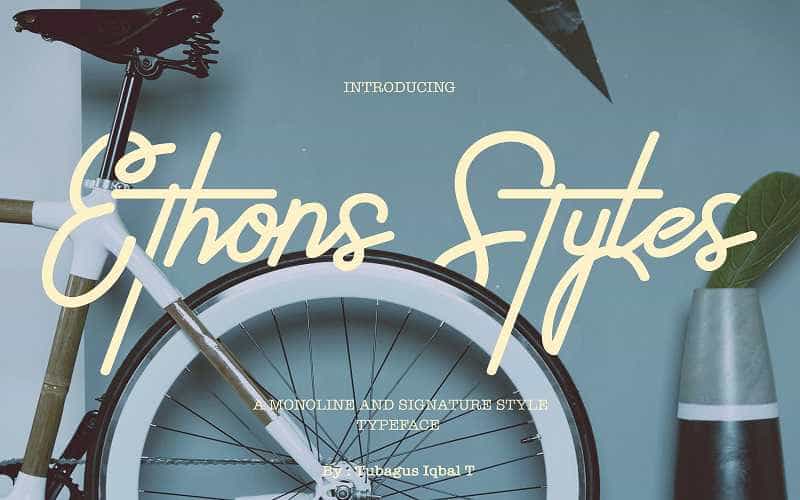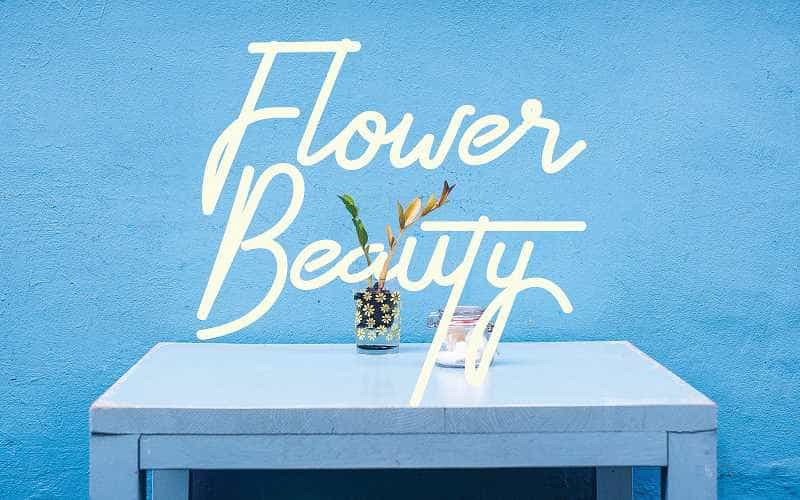
Discover Ethons Styles Script Font, part of the Calligraphy collection—a versatile and unique font perfect for adding a personal touch to your projects. Download it for free and enjoy crafting designs with style, from invitations to social media posts. This font is available exclusively for personal use, giving you the freedom to create without limits. Unlock your creativity with Ethons Styles Script Font today!
Ethons is an elegant monoline and a signature style typeface that aims at adding modern script into any design. This typeface is versatile and can be fully appreciated through Ethons Styles today for logos, headings, signatures, wedding invitations, t-shirts, letterhead, signage, news labels, posters, badges etc.